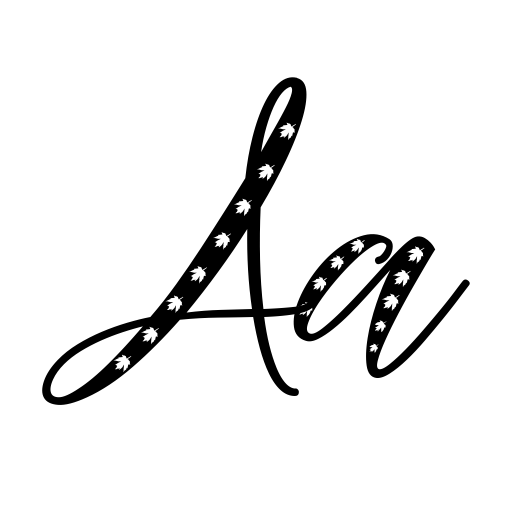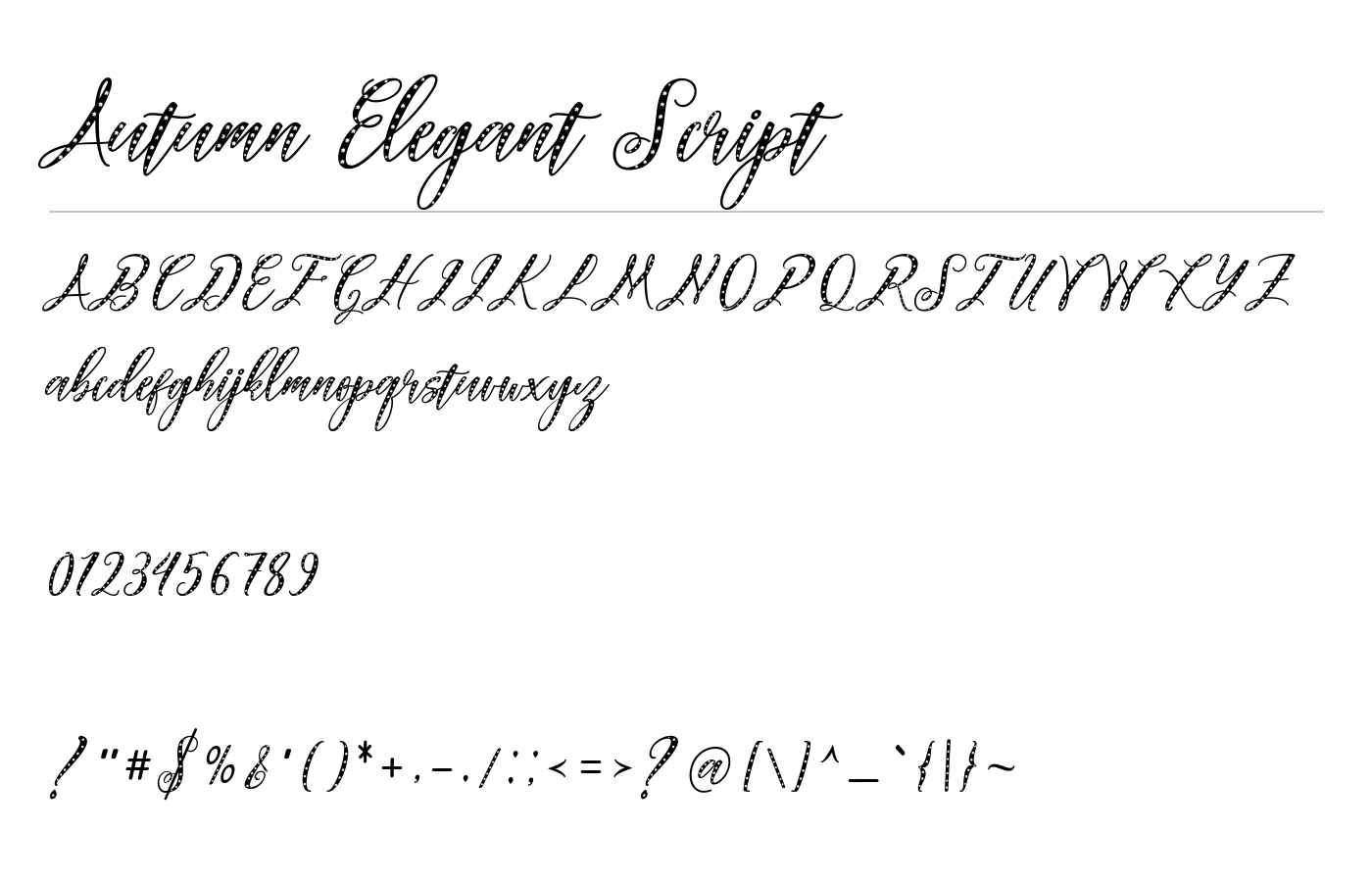
Autumn Elegant Script is a refined and graceful script font featuring delicate, flowing strokes that convey a sense of sophistication and charm. Its slender, moderately high-contrast lines and decorative swashes make it ideal for elegant branding, wedding invitations, and stylish packaging where a touch of classic beauty is desired. This font works wonderfully for headlines and logos, adding a personal, artistic flair without sacrificing legibility.
Autumn Elegant Script Font
About Autumn Elegant Script Font